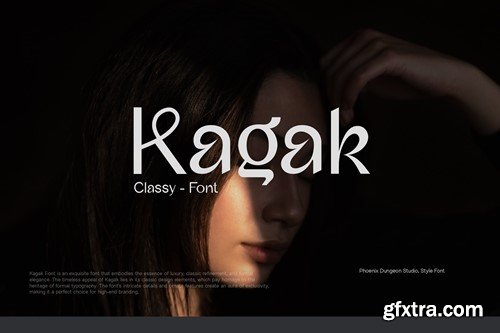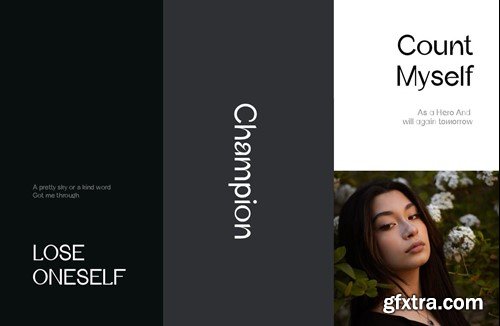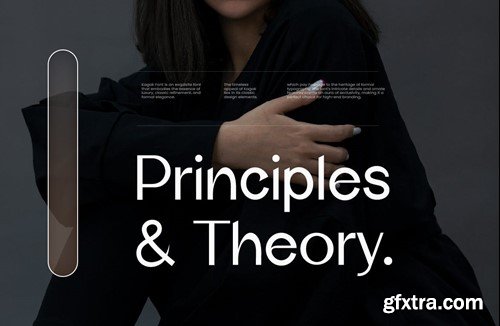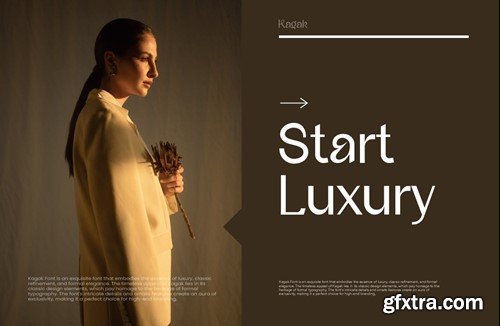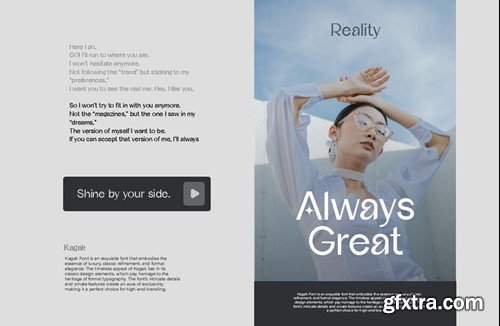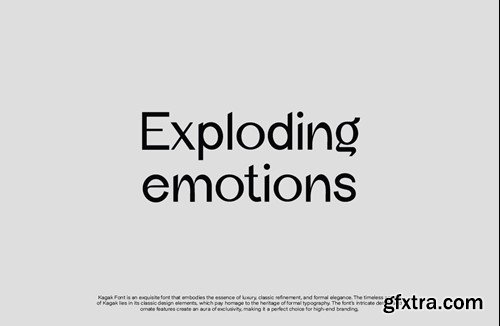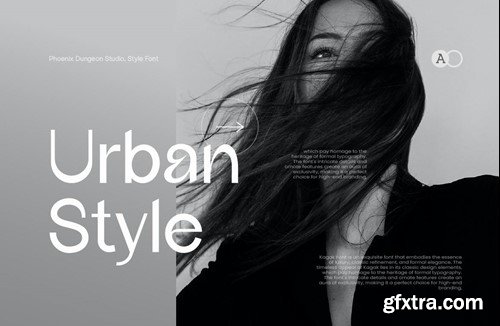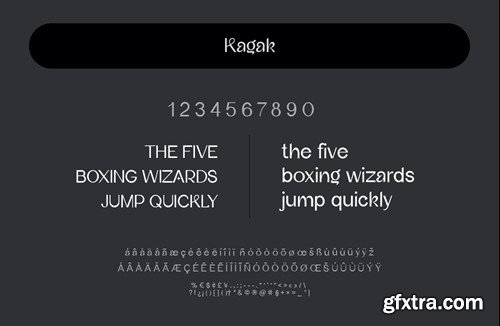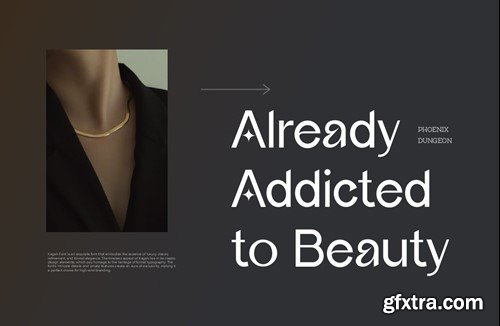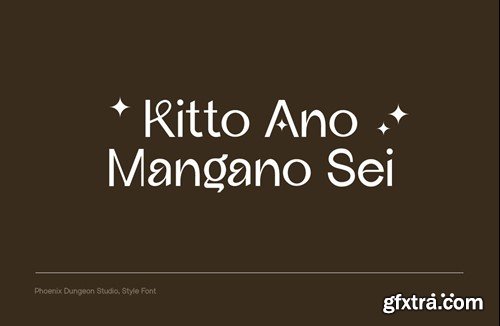
Kagak Font
Kagak Font is an exquisite font that embodies the essence of luxury, classic refinement, and formal elegance. The timeless appeal of Kagak lies in its classic design elements, which pay homage to the heritage of formal typography. The font's intricate details and ornate features create an aura of exclusivity, making it a perfect choice for high-end branding. What’s in the package : Thank you